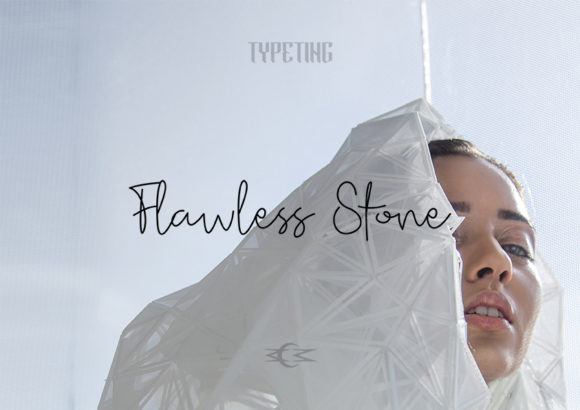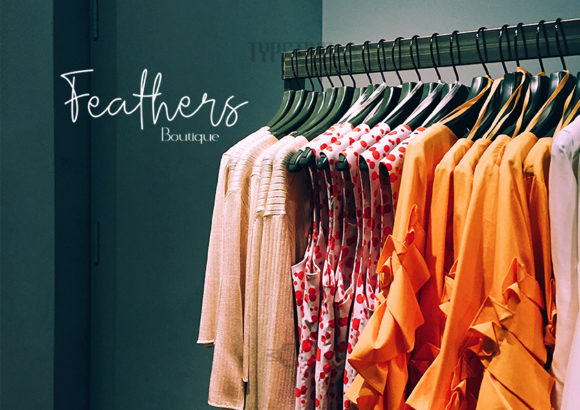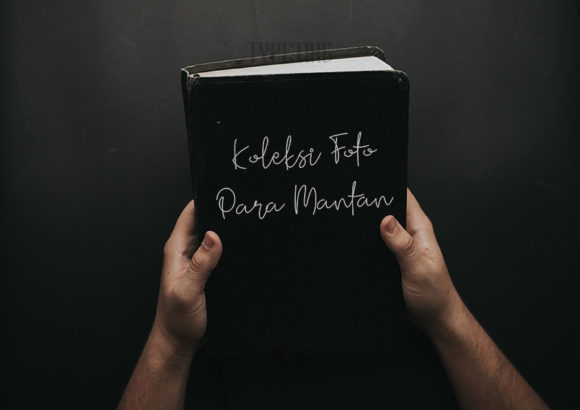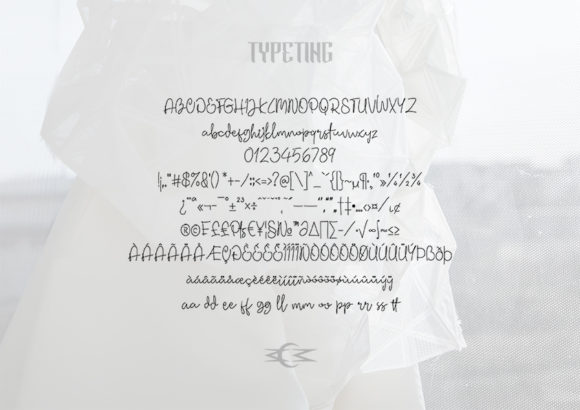
Flawless Stone Font
About Flawless Stone Font
Flawless Stone is a cute and casual handwritten font with an incredibly friendly feel. Get inspired by its authentic feel and use it to create gorgeous wedding invitations, beautiful stationary art, eye-catching social media posts, and cute greeting cards.